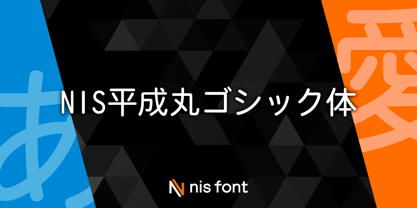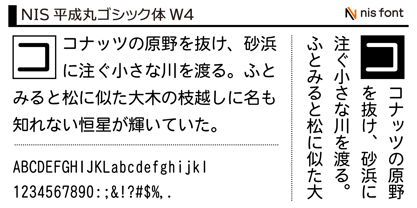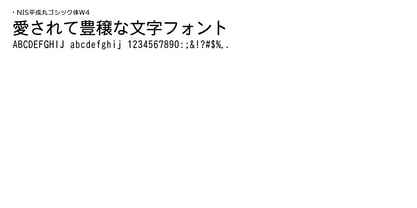
OT-NIS_HER
The OT-NIS_HER Font Family was designed by and published by NIS Fonts. OT-NIS_HER contains 1 styles. More about this family
This rounded sans-serif typeface was developed by the Font Development and Promotion Center. Single-byte Latin characters are in a fixed-width format. Note: This typeface supports the JIS2004 character set.